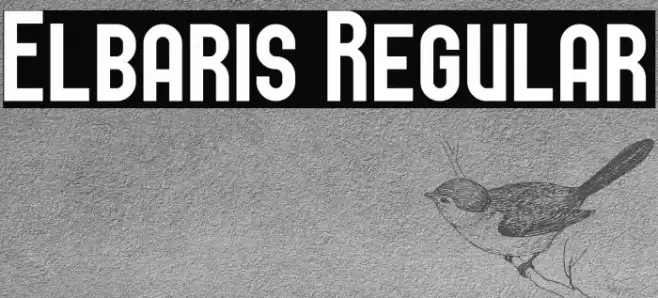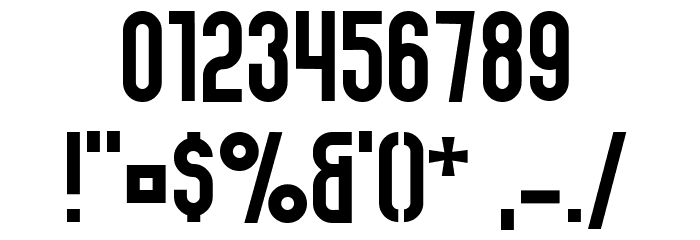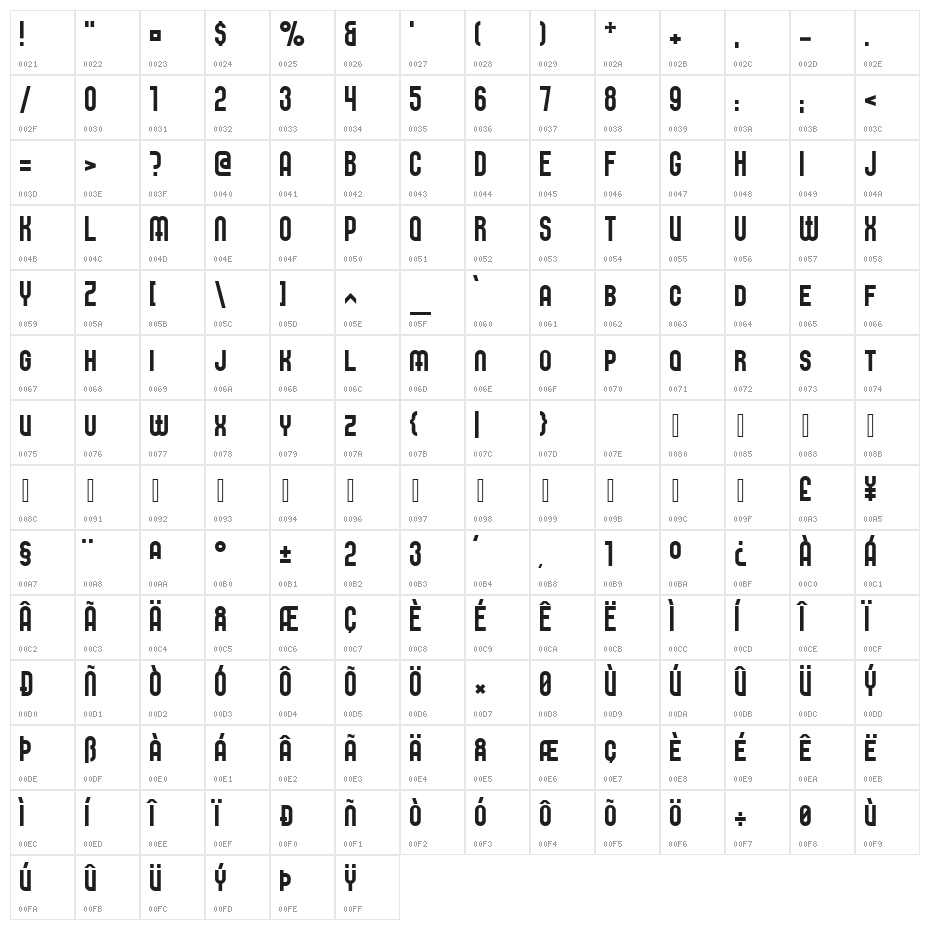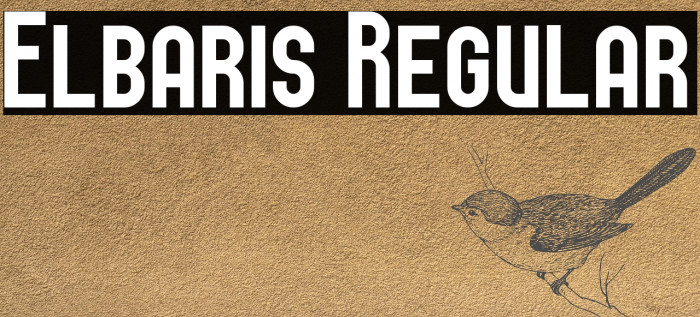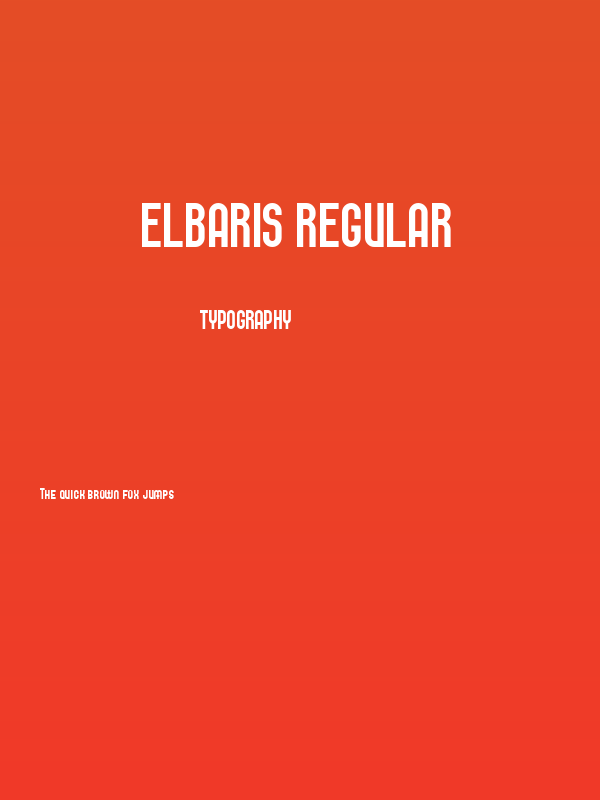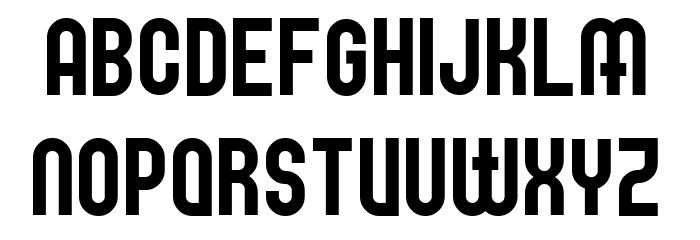
Elbaris Regular Font
Elbaris Regular Description
This font features a bold and geometric design with a modern aesthetic. The characters are uniformly structured, exhibiting a strong presence with their thick strokes and minimal contrast. The uppercase and lowercase letters maintain a consistent width, contributing to a cohesive and balanced appearance. The numerals are equally bold, ensuring readability and impact. Special characters are designed with the same boldness, integrating seamlessly with the overall style. This font is ideal for projects that require a strong visual statement, such as branding, posters, and headlines.
A bold, geometric font with a modern and impactful design from Uncategorized fonts.